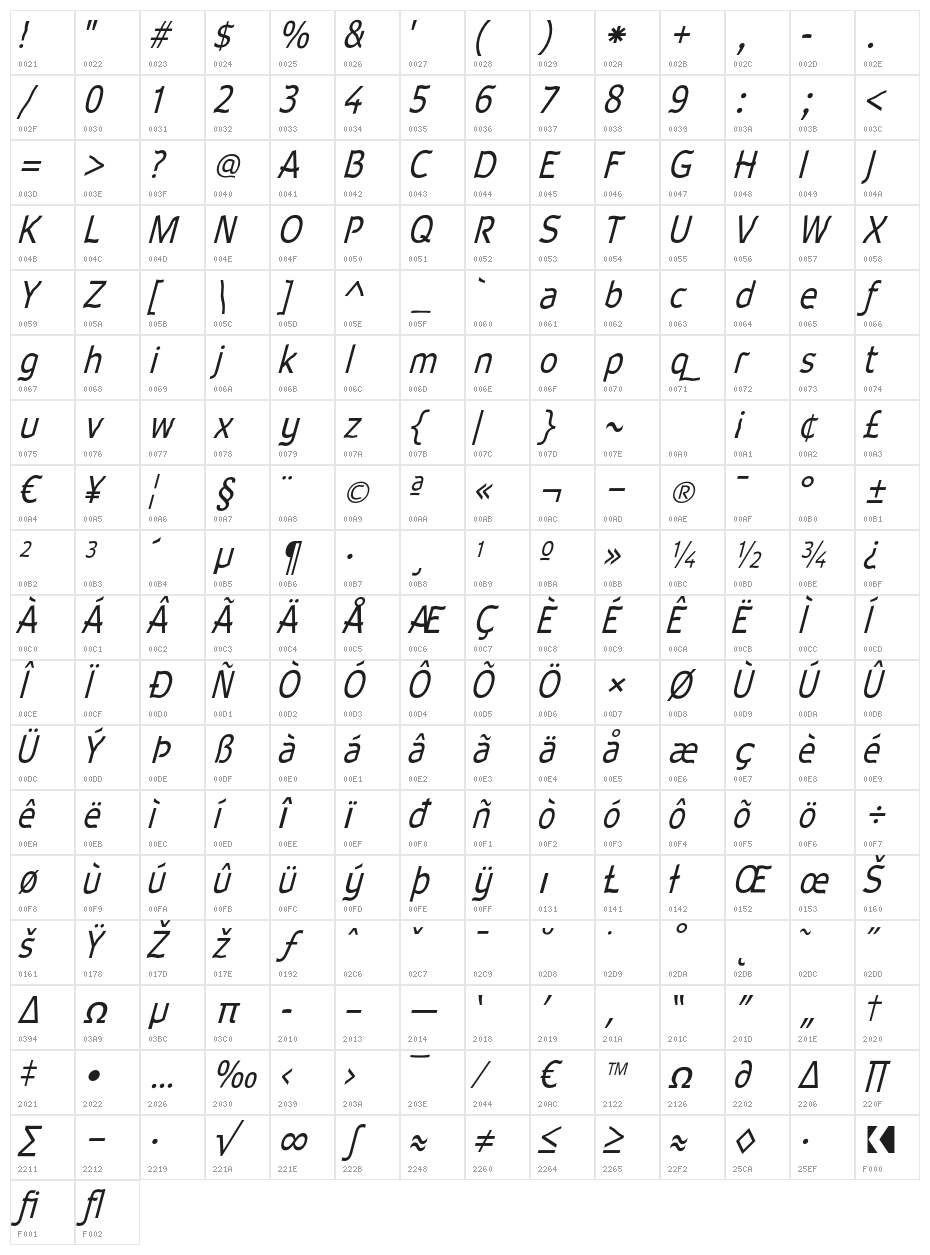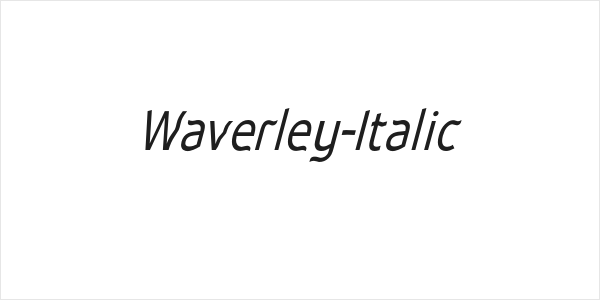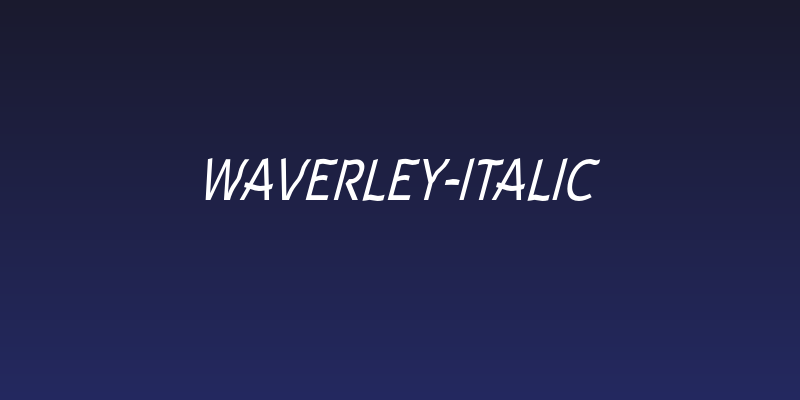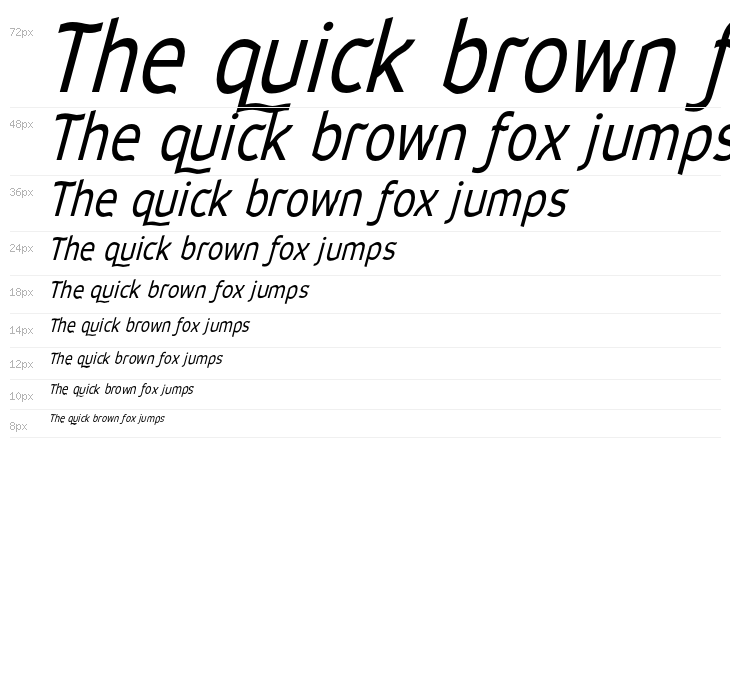
Waverley-Italic Font
Waverley-Italic Description
This font features a dynamic and elegant italic style, characterized by its smooth and flowing letterforms. The slanted design adds a sense of motion and sophistication, making it suitable for a variety of creative applications. The uppercase and lowercase letters maintain a consistent style, with a slight slant that enhances readability while adding a touch of flair. Numbers and special characters are designed to complement the overall aesthetic, ensuring a cohesive look across different text elements. The font's clean lines and balanced proportions make it versatile for both digital and print media.